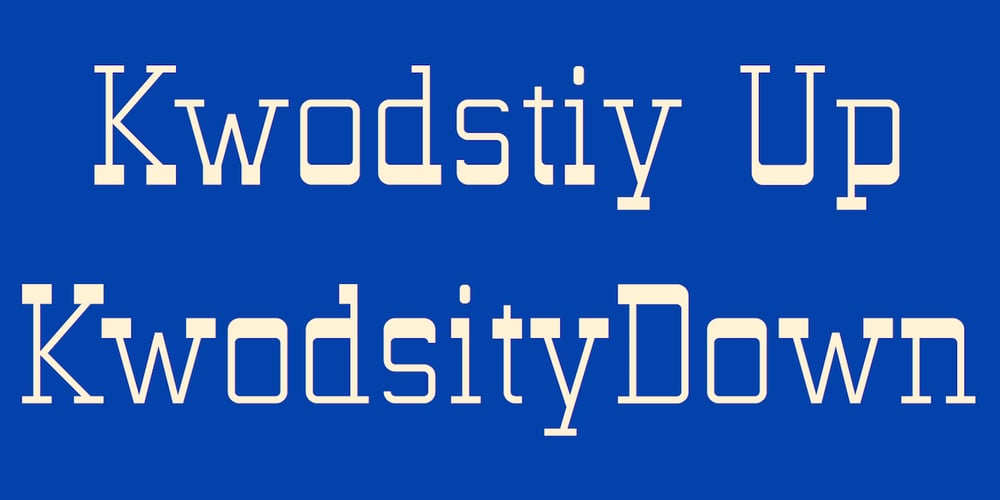
Kwodsity Font Family was designed by Robert Schenk and published by Ingrimayne Type. Kwodsity contains 2 styles and family package options. The two Kwodsity fonts are derived from Kwersity, a narrow, blocky typeface with slab serifs and a high x-height. In Kwodsity Up the bottom edges and bottom serifs have been thickened, while in Kwodsity Down the top edges and serifs have been thickened.